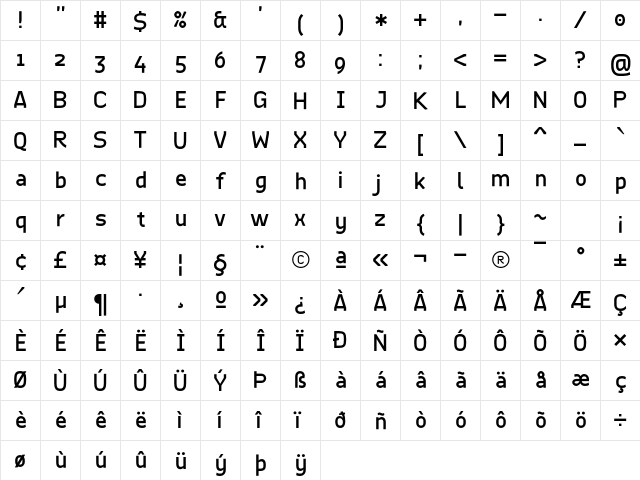
Quinone Regular Font Preview
Quinone Regular
Quinone Regular Font Details
Design Context for Quinone Typeface
Quinone is a composed and adaptable typeface that performs quietly and consistently across a wide range of design contexts.